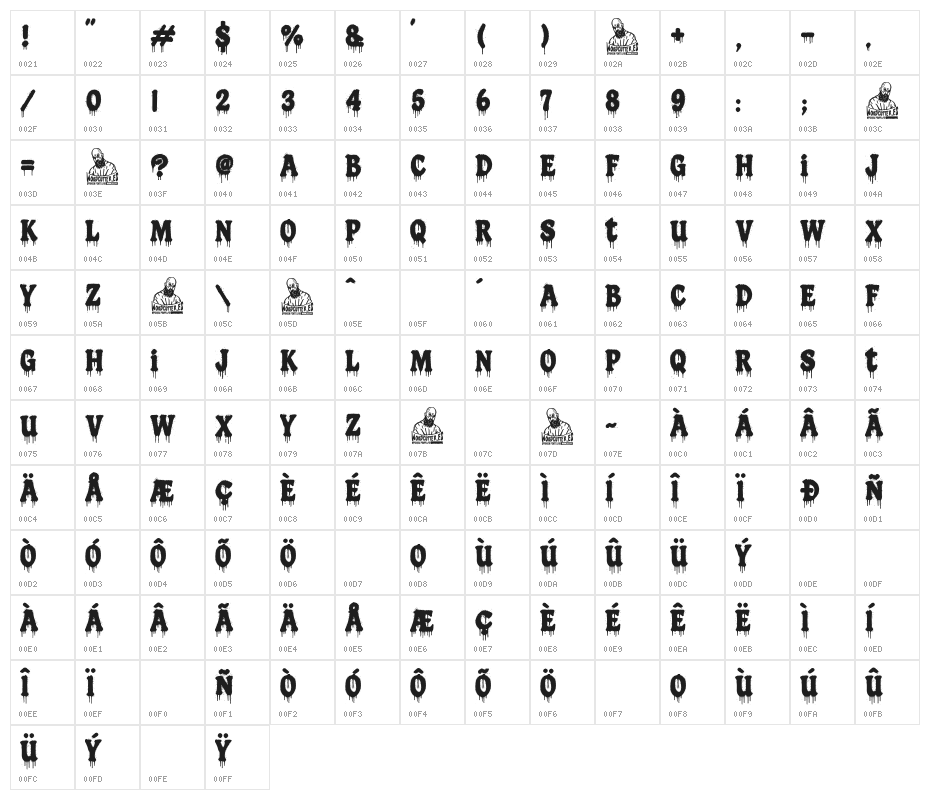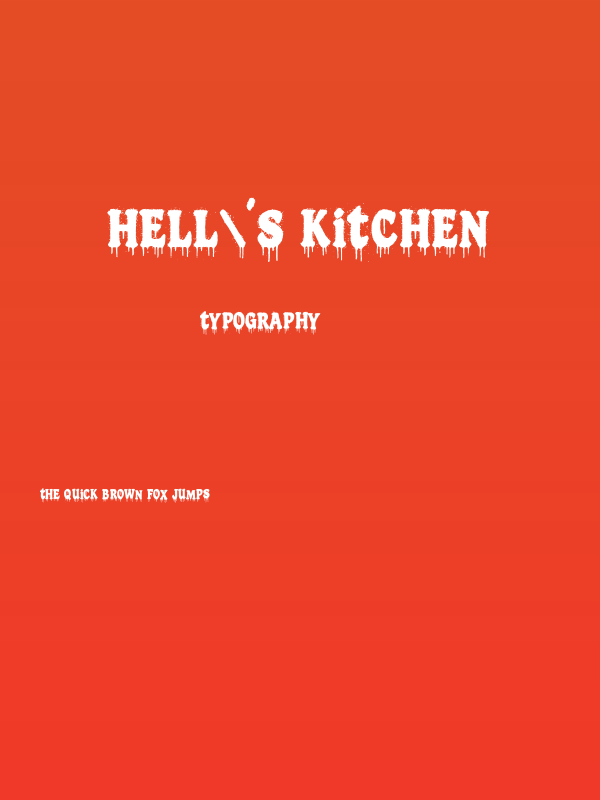
Hell's Kitchen Font
| Overall Style | Decorative, Horror, Grunge |
| Use Case | Headlines, Posters, Logos, Themed Graphics |
| Proposed Projects | Halloween posters, horror movie titles, haunted house flyers, themed party invitations, graphic novels, video game titles. |